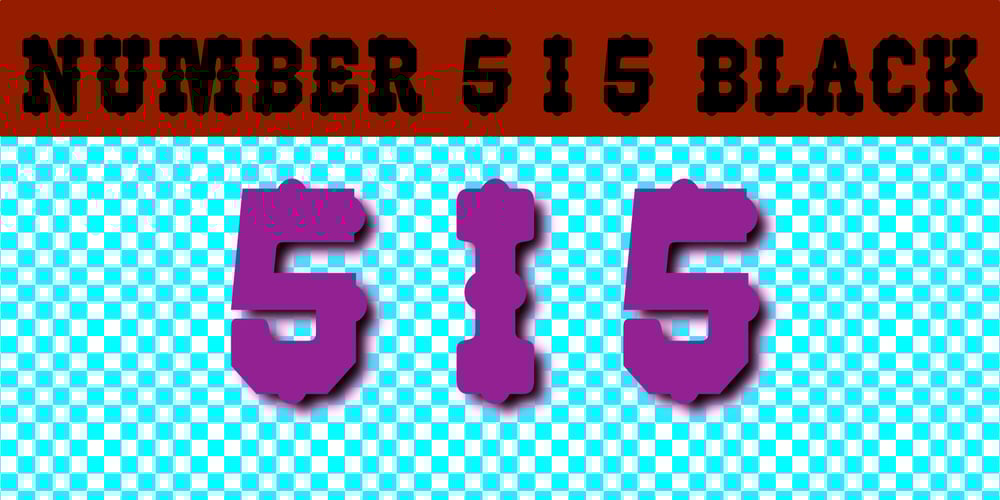
Number 515 Font Family was designed by Jordan Davies and published by Wooden Type Fonts. Number 515 contains 1 styles and family package options. A display style, with protuding bulb round ends at the serifs and mid-points, very bold, lower case originally not designed.